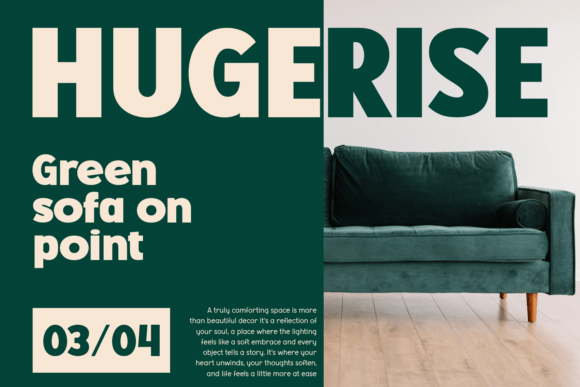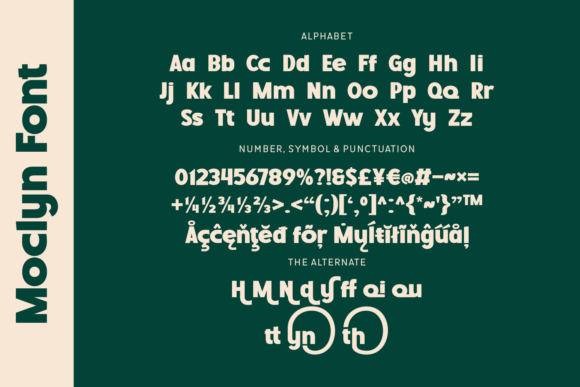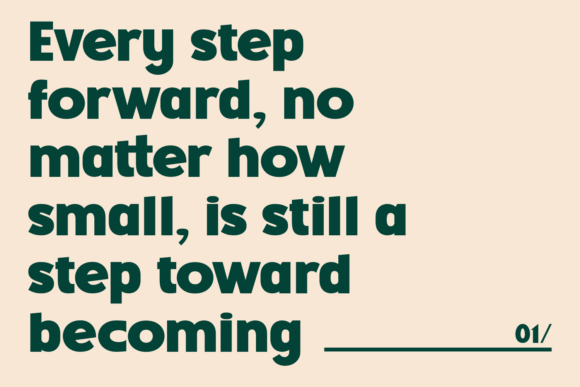
Introduction to Moclyn Font
Moclyn is a bold and playful sans serif display font with smooth curves and a quirky personality.
Its wide stance and chunky forms are perfect for logos, packaging, retro-inspired designs, or fun branding projects that need to stand out .